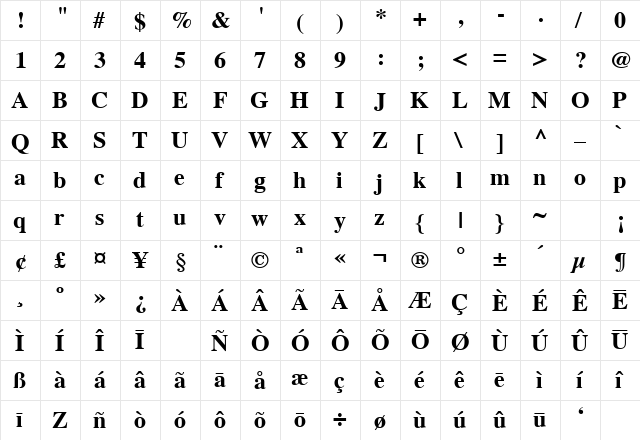
HI Manokalanipo Bold
Design Context for HI Manokalanipo Typeface
HI Manokalanipo is a composed and adaptable typeface that performs quietly and consistently across a wide range of design contexts. Its bold stroke weight gives it real presence on the page.